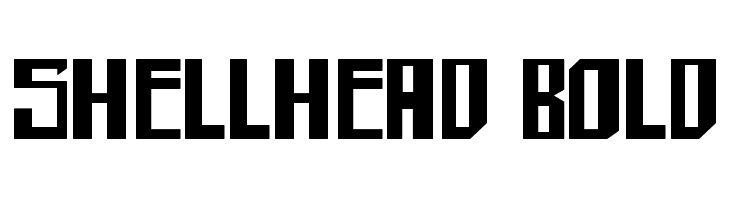
( Fonts by Press Gang Studios - Andeh Pinkard - www.pressgang-studios.com )
A bold, geometric font with a futuristic and assertive style.
( Fonts by Press Gang Studios - Andeh Pinkard - www.pressgang-studios.com )
A bold, italicized font with a dynamic, angular design.
( Fonts by Press Gang Studios - Andeh Pinkard - www.pressgang-studios.com )
A bold, italicized font with sharp, angular edges and a futuristic look.
( Fonts by Xerographer Fonts )
A bold, geometric font with a futuristic, digital aesthetic.
( Fonts by Iconian Fonts )
A bold, angular font with a geometric and dynamic style.
( Fonts by Iconian Fonts )
A bold, 3D font with a futuristic and dynamic style.
( Fonts by Iconian Fonts )
A bold, dynamic font with sharp angles and high contrast.
( Fonts by Iconian Fonts )
A bold, futuristic font with a three-dimensional effect and geometric design.
( Fonts by Iconian Fonts )
A bold, slanted, and condensed geometric font with a dynamic appearance.
( Fonts by Iconian Fonts )
A bold, dynamic font with a futuristic and sporty aesthetic.